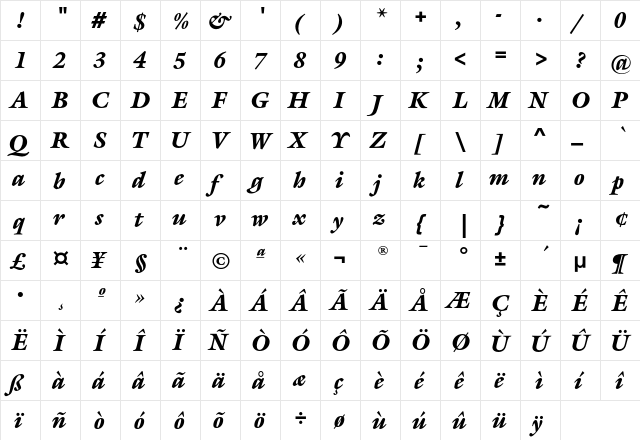
GalliardEF-BlackItalic Regular Font Preview
GalliardEF-BlackItalic Regular
GalliardEF-BlackItalic Regular Font Details
Design Context for GalliardEF-BlackItalic Typeface
GalliardEF-BlackItalic takes a measured approach to typography — its balanced proportions and neutral character make it a reliable workhorse for both digital and print work. The slanted form adds forward momentum and visual energy.
Pro Tip: Try GalliardEF-BlackItalic for annotation and caption copy alongside an upright companion — the contrast in angle creates a dynamic but ordered typographic system.